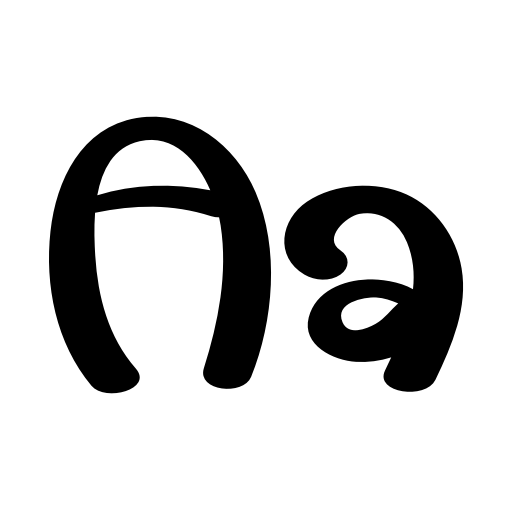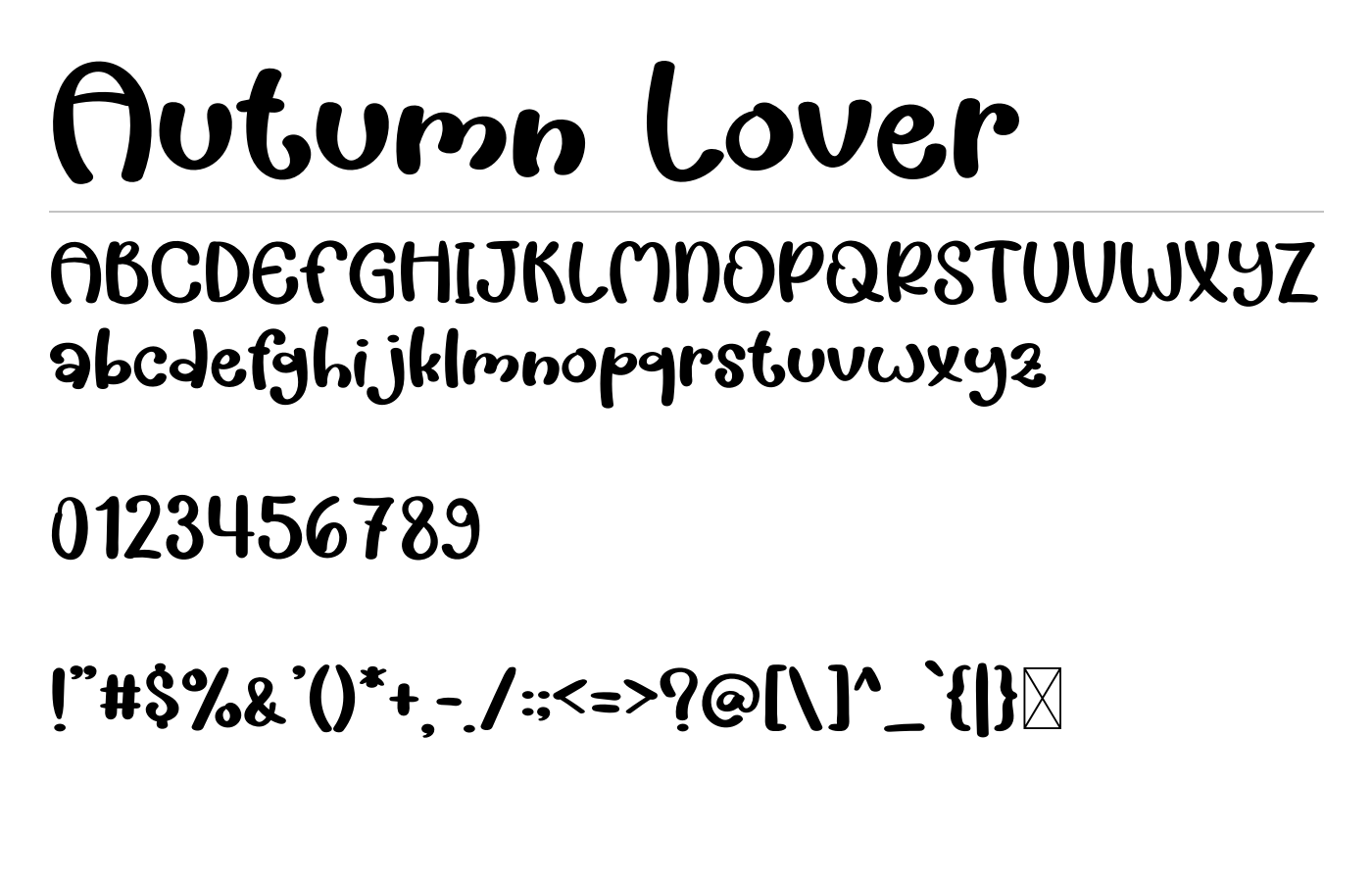
Autumn Lover is a playful, hand-drawn sans serif font with a warm, casual feel. Its rounded, slightly irregular letterforms give it a friendly and approachable personality, making it ideal for creative projects, children’s content, and informal branding. This font works best in headlines, invitations, or packaging where a charming, handcrafted touch is desired.
Autumn Lover Font
About Autumn Lover Font